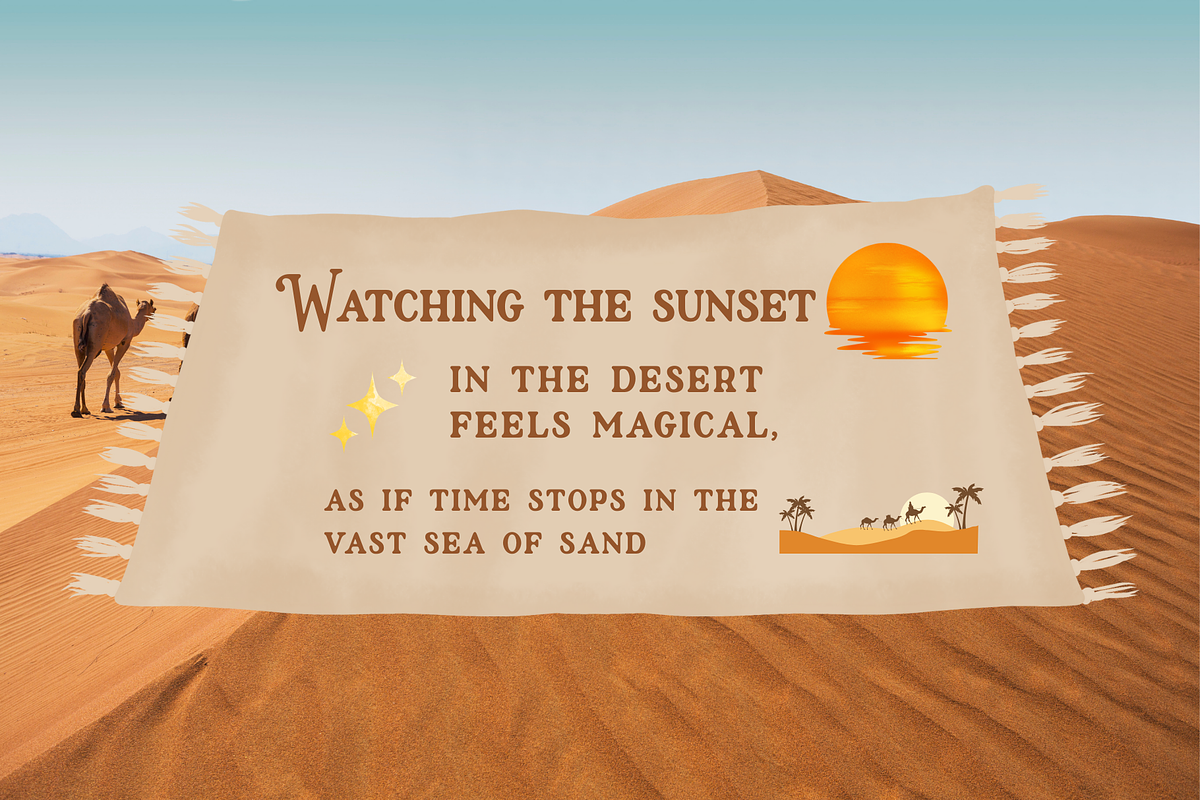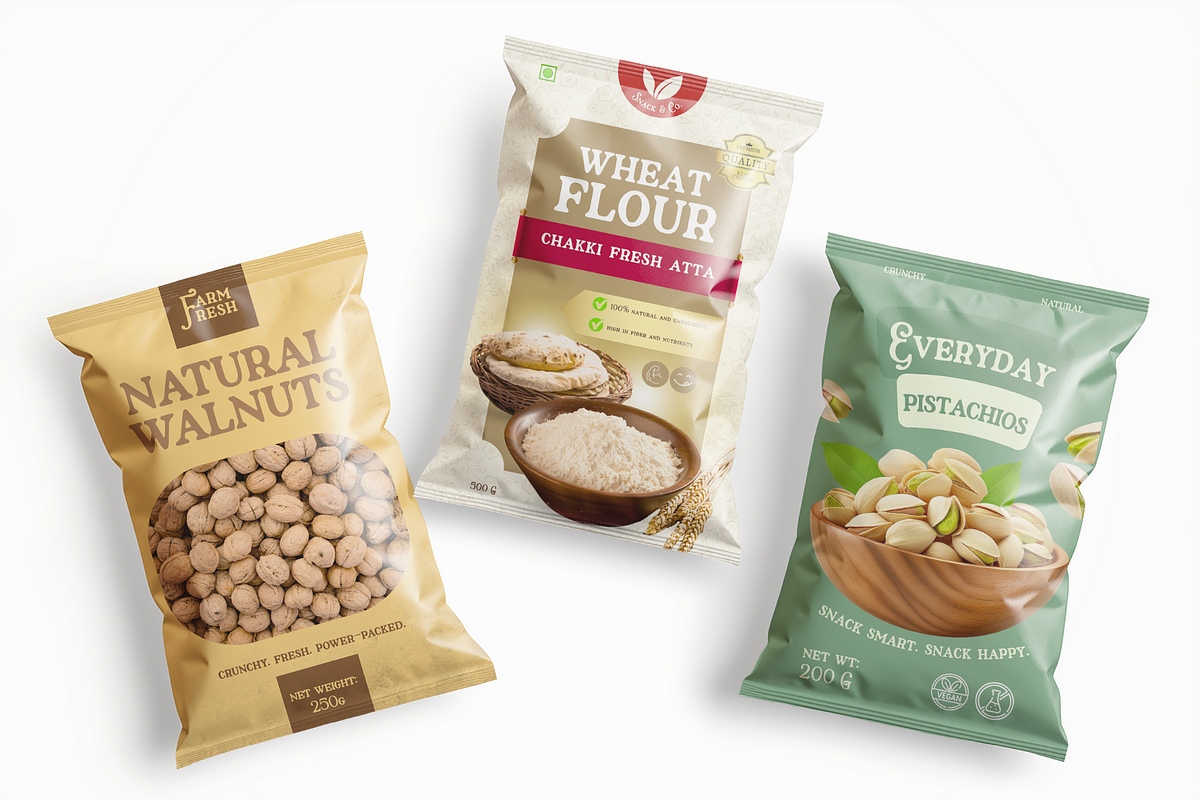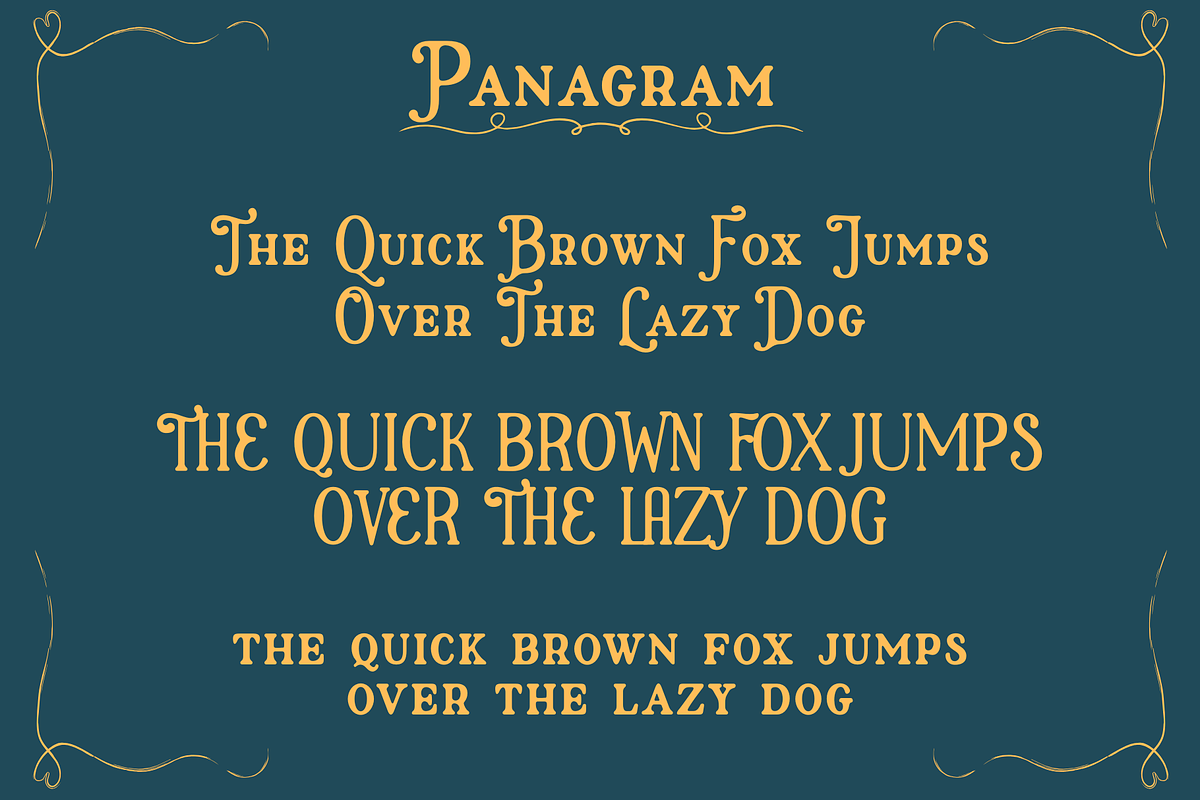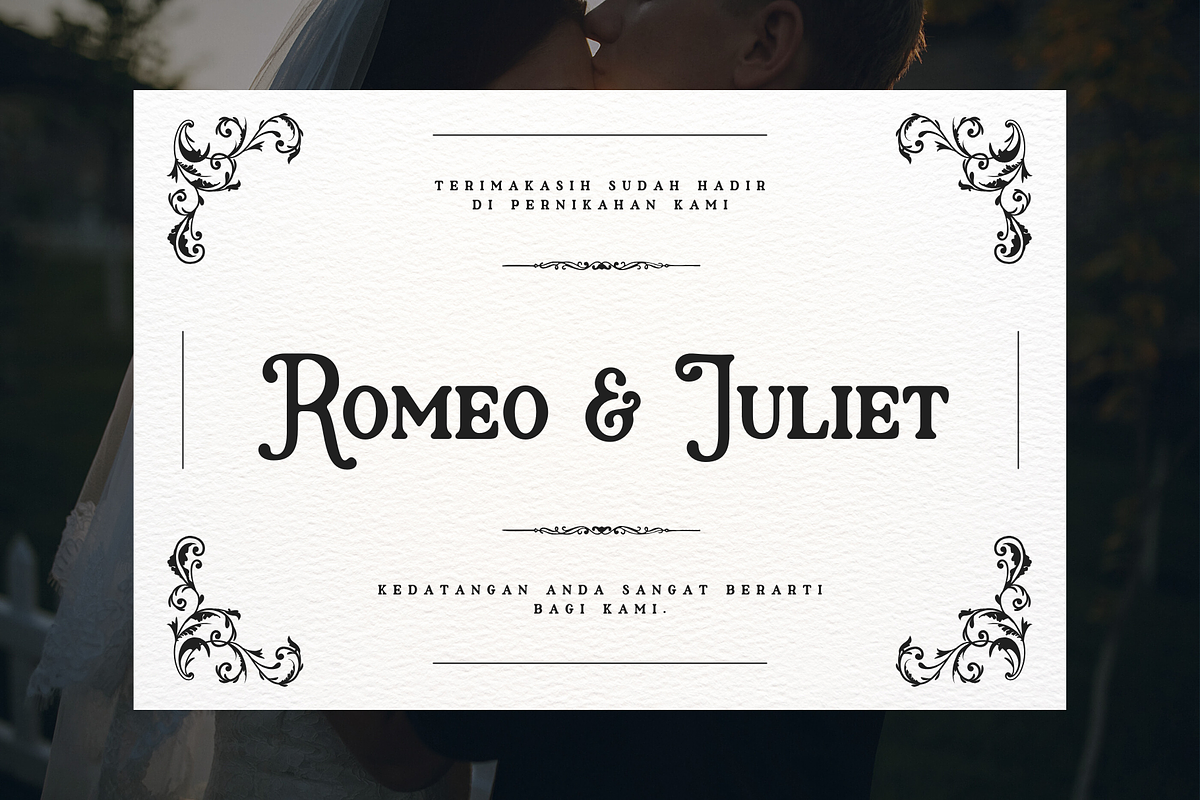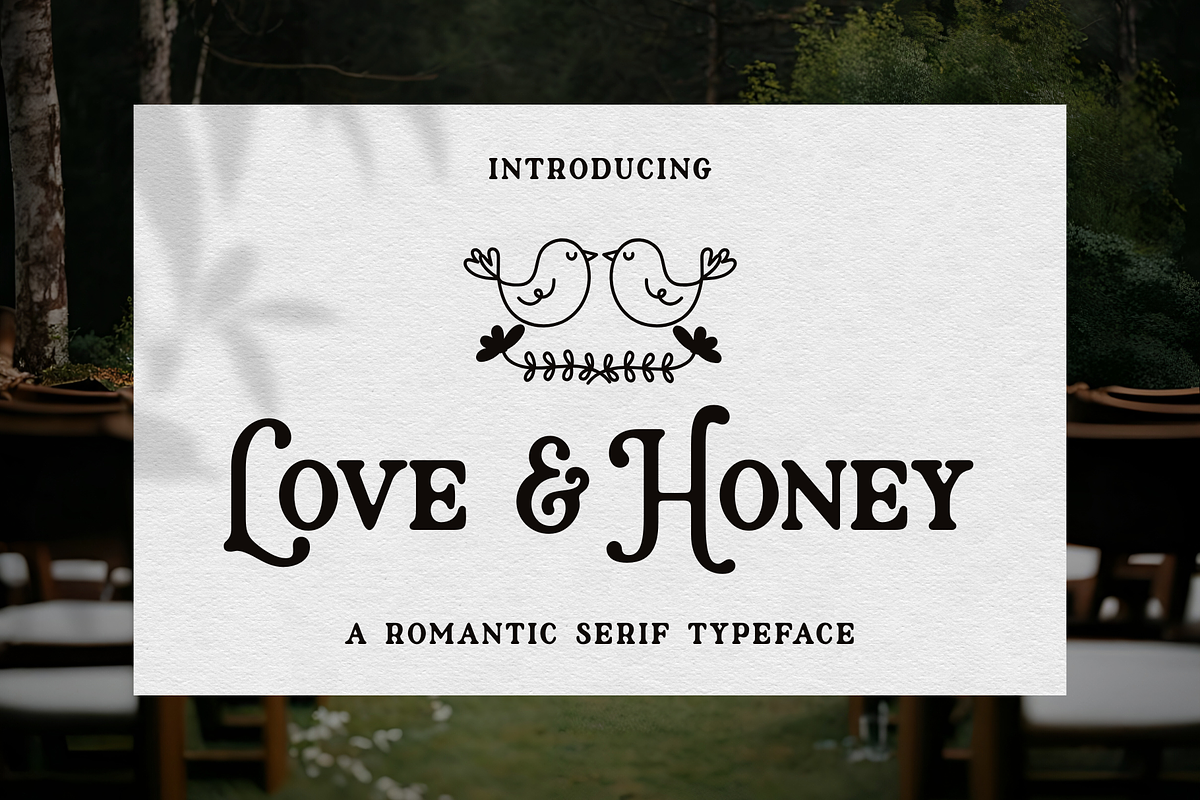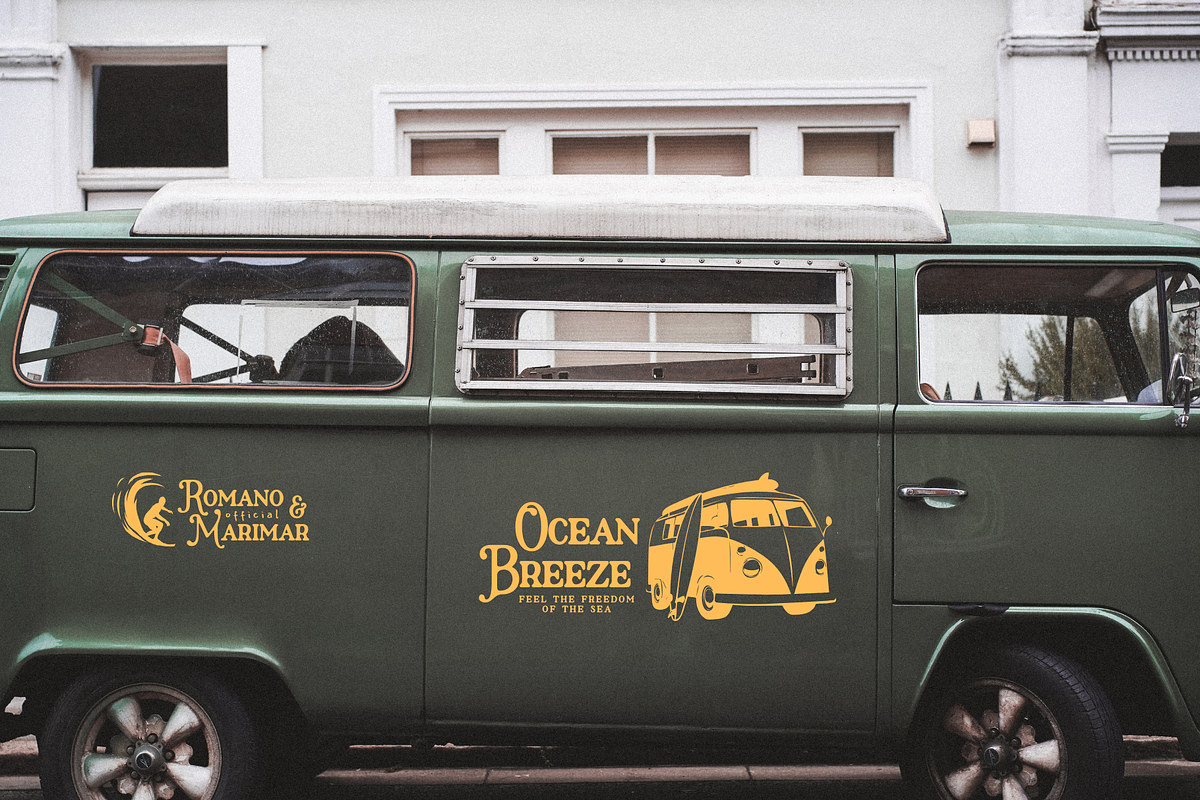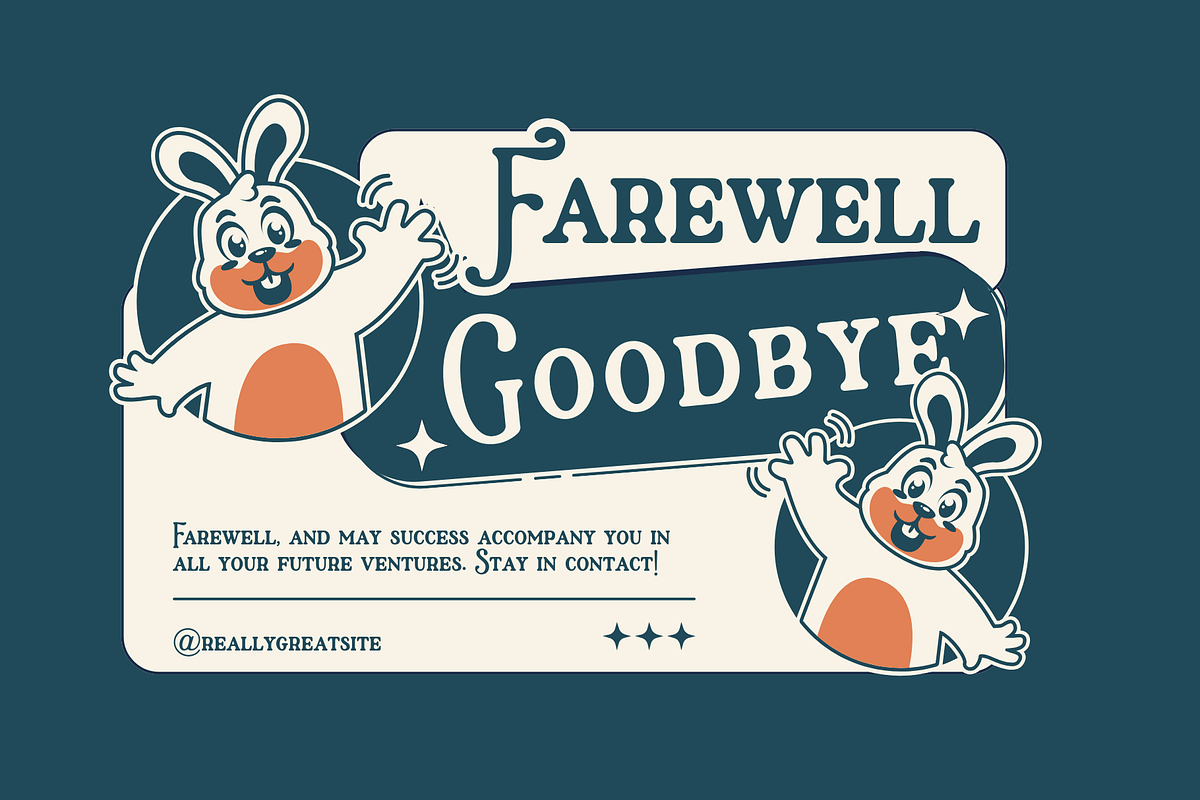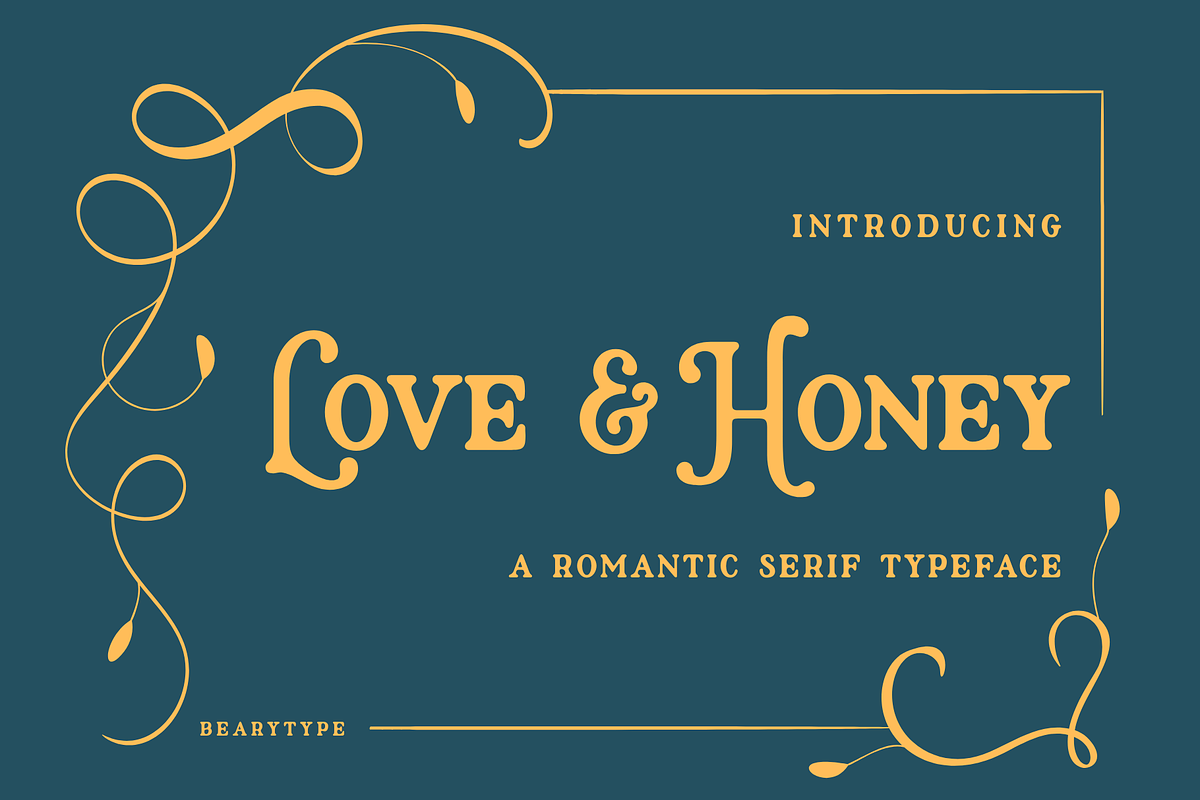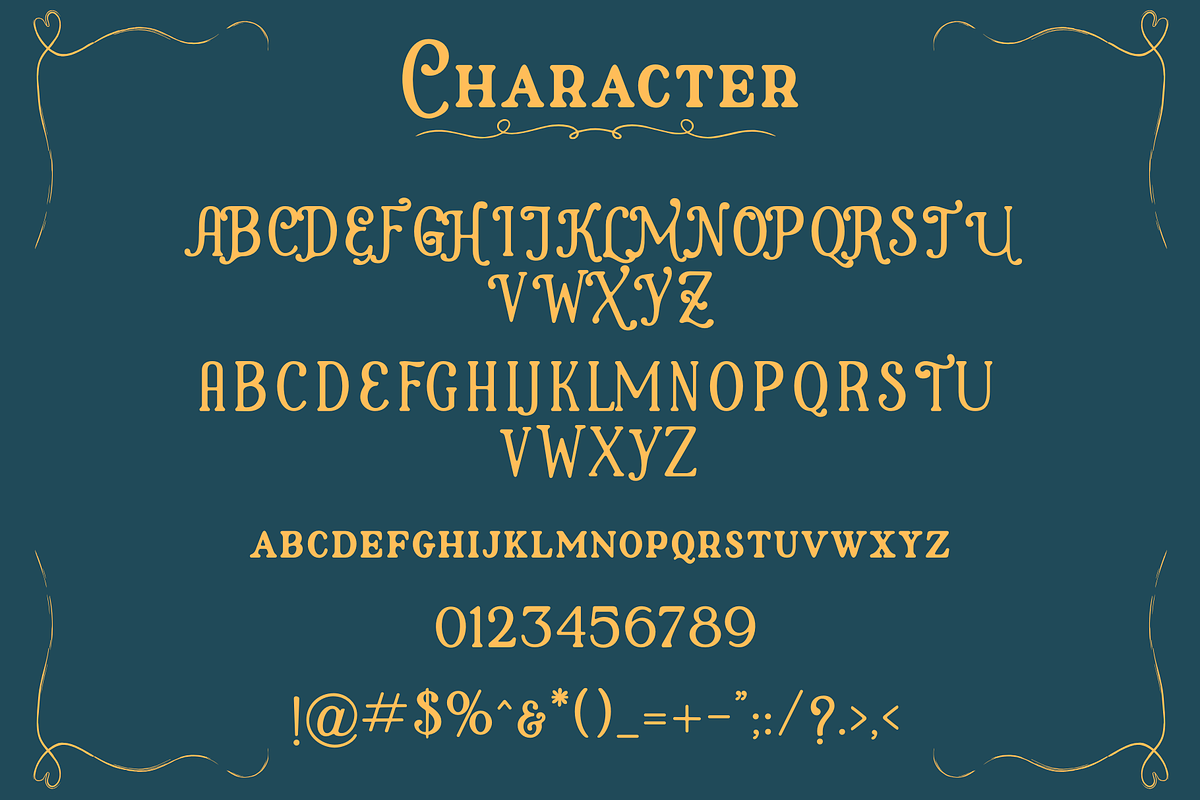
Love And Honey | romantic serif
💍 Love And Honey | Elegant Serif Font Love And Honey is an elegant serif font designed for weddings, logos, and luxury branding. Its soft details and romantic vibes make it a perfect choice for creating timeless designs with a modern twist.
Use Love And Honey for wedding stationery, save-the-date cards, fashion branding, magazine titles, Instagram quotes, and product packaging.